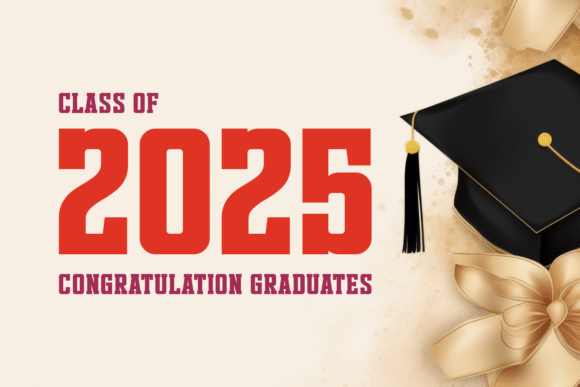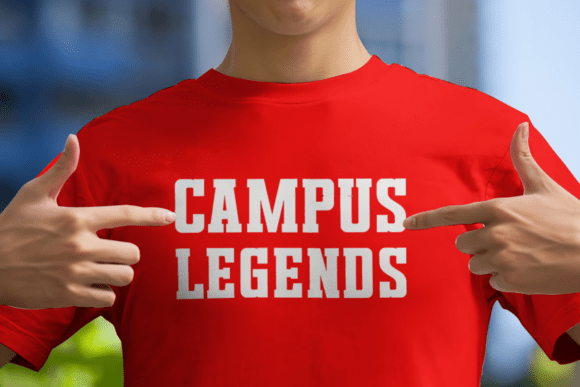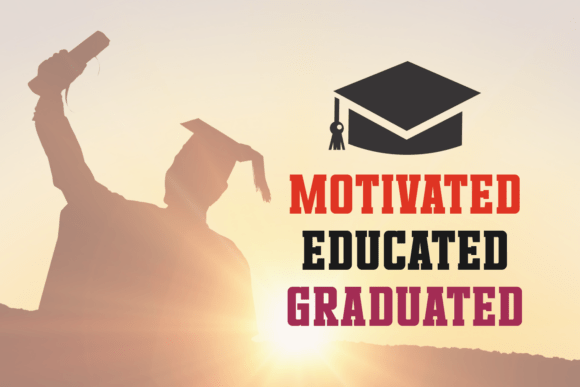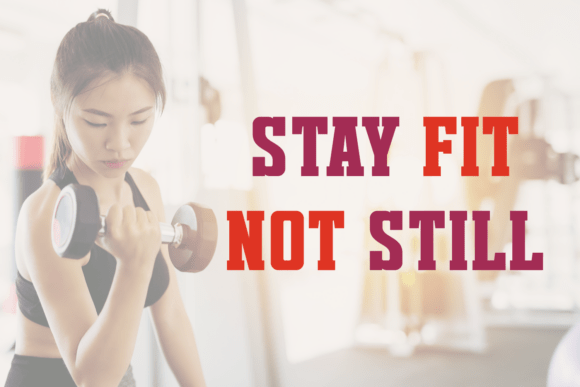
Introduction to Graduation Beautiful Font
Discover the elegance of Graduation Beautiful, a versatile slab serif font.
This unique creation is more than just a college or university font It encapsulates the vibrancy of sports, with the bold, powerful spirit seen in both football and soccer.